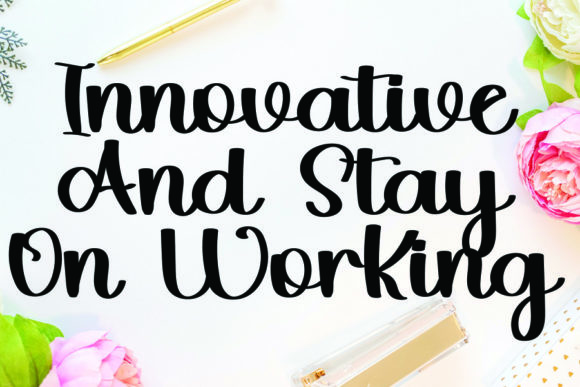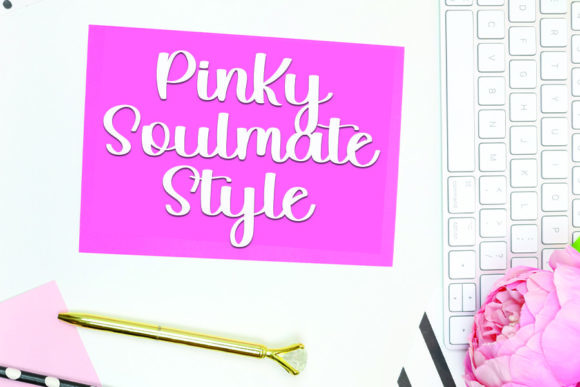
Meeting Font
db-ku.com - Script & Handwritten -- Meeting is a trendy handwritten font with a contemporary atmosphere and impeccable form, inspired by a timeless classic calligraphy. It will add elegance and class to any of your design projects. This font can be used to write various kinds of products according to the aspect of each need.